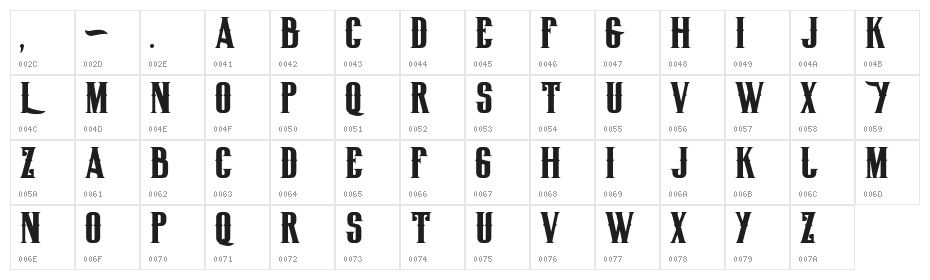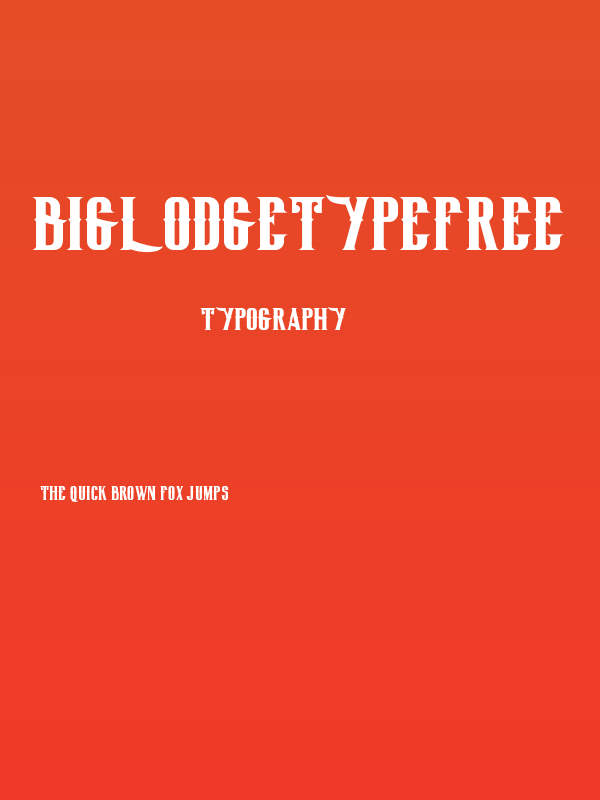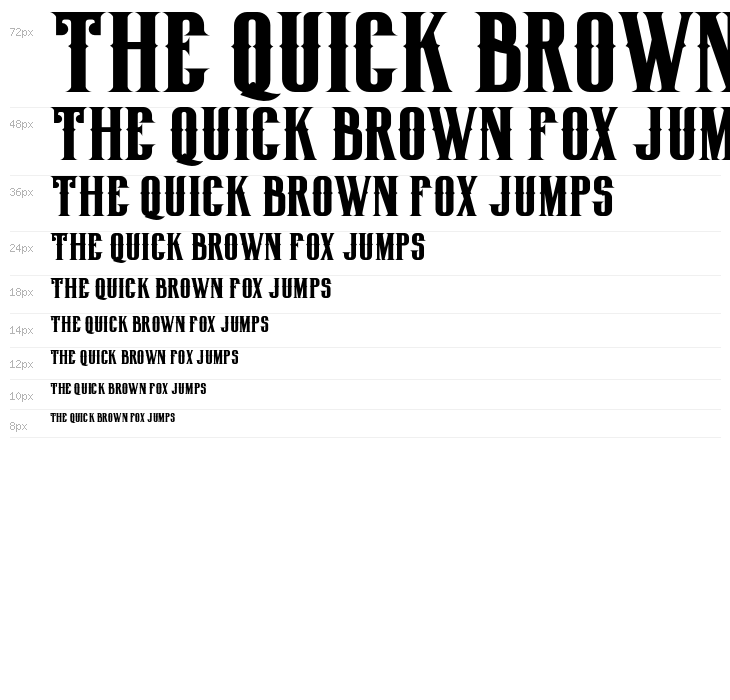
BigLodgeTypeFree Font
✎ Western
| Gesamtstil | Vintage |
| Vorgeschlagene Projekte | Ideal for vintage-themed posters, signage, logos, and headlines that require a bold, attention-grabbing typeface. |